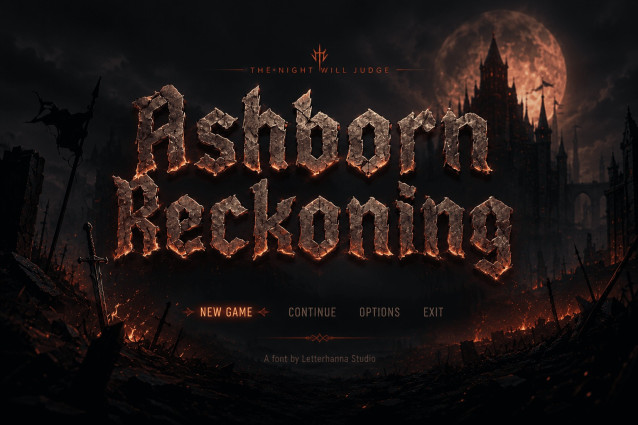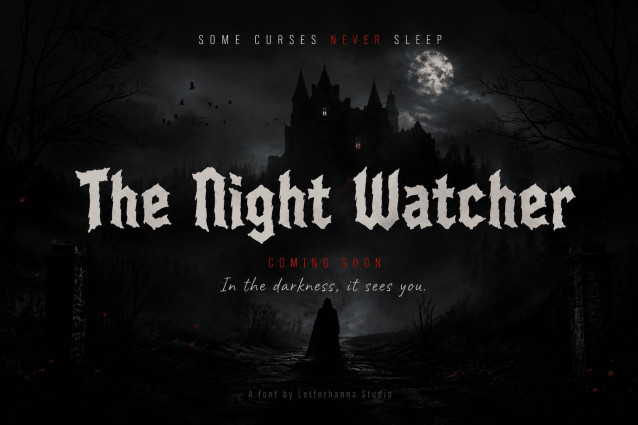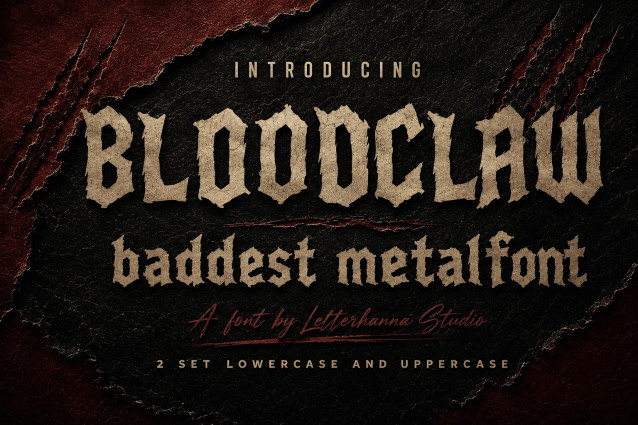
Bloodclaw Font – The Baddest Font for Metal Typography, Horror Branding, and Fonts That Capture Anger
Bloodclaw fits naturally into album covers, band merch, horror movie posters, tattoo parlor signage, gaming title screens, wrestling event flyers, and streetwear branding. It also works beautifully for Halloween-themed products, dark fantasy book covers, and any brand trying to stand out in a saturated market of soft, minimal typography.
Because the font maintains strong structural clarity despite its rough texture, it remains legible at both large headline sizes and smaller product-label applications — a detail many aggressive display fonts overlook.